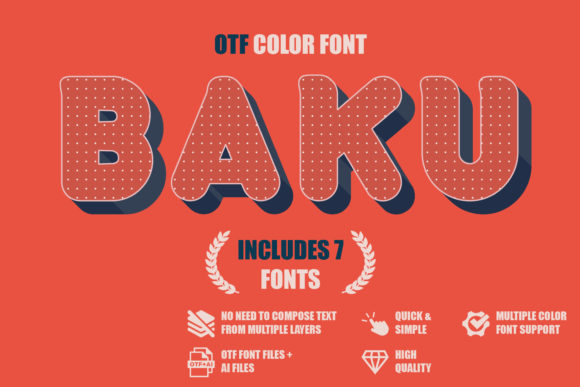
Baku Font: A Symphony of Colors That Will Ignite Your Designs!
Immerse yourself in the vibrant world of Baku Font, a color font masterpiece that will transform your creative vision into an explosion of hues and artistry. Each letter, meticulously hand-crafted by the talented mrramon, bursts with bold and thick color, ready to ignite your design journey with unparalleled vibrancy.
Baku Font is not merely a font; it's an experience that captivates your senses and sparks your imagination. Whether you're a seasoned designer or just starting, Baku Font will elevate your creations, making them stand out from the mundane and ordinary.
Picture this: you're designing a clothing line, and you want your brand to exude a sense of playful sophistication. Baku Font, with its cheerful and eye-catching letters, will effortlessly elevate your designs, adding a touch of whimsy and fun that will resonate with your target audience.
Or perhaps you're working on a project that demands a bold and impactful message. Baku Font, with its thick, unapologetic strokes, will command attention and leave a lasting impression. Your words will leap off the page, grabbing the reader's gaze and compelling them to delve deeper into your message.
Baku Font is more than just a font; it's a gateway to a world of limitless creativity. Its versatility extends beyond clothing design, making it an ideal choice for posters, logos, branding, social media graphics, and any other project where you want to make a statement.